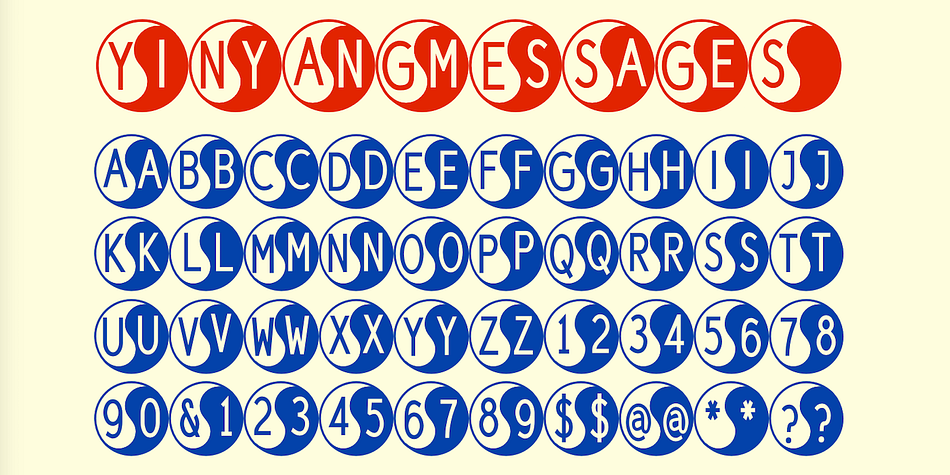
YinYangMessages
Designed by Robert Schenk, YinYangMessages is a monograms and novelty font family. This typeface has two styles and was published by Ingrimayne Type.
YinYangMessages contains two sets of letters, those on the upper-case keys that fit on the left side of a yin-yang symbol and those on the lower-case keys that fit on the left side of a yin-yang symbol. One can alternate the two sets manually but the OpenType contextual alternatives feature does this automatically in any program that supports this feature.
The family contains two fonts. In one the filled half is on the left and in the other the filled half is on the right. The slash and backspace keys contain blank halves of the symbol, which are useful for completing words with an odd number of letters. The two styles can be used in layers.
YinYangMessages is a fun and playful family that every once in a while may be the ideal typeface for some unusual situation.